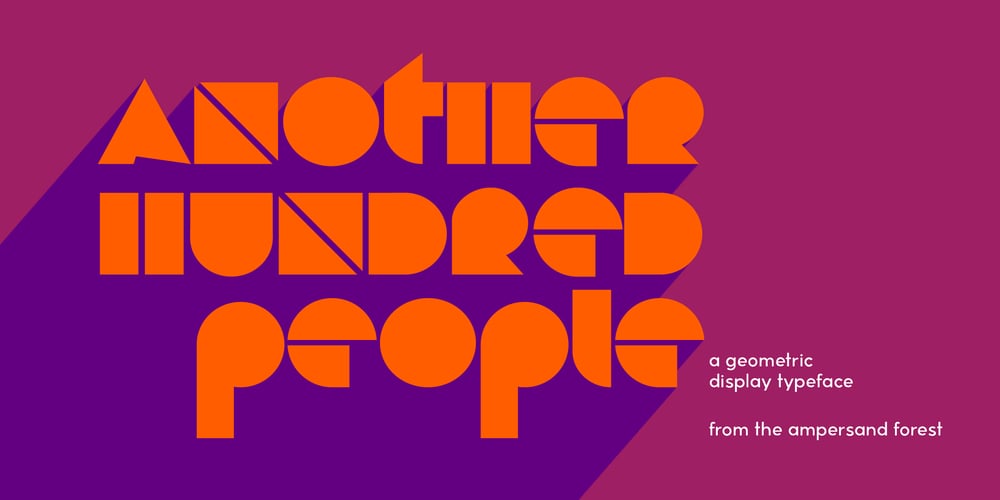
Another Hundred People Font Family was designed by DC Scarpelli and published by The Ampersand Forest. Another Hundred People contains 1 styles and family package options. Inspired by the iconic modernist letterforms in the poster for Stephen Sondheim’s 1972 musical Company, Another Hundred People is a gleeful set of solid geometric glyphs — as though a set of Colorforms decided to express itself in words.In addition to its lowercase and caps (which don’t share a baseline with the lowercase, but hang below it), Another Hundred People has solid alternates (for those who don’t like the divided letterforms) and overlapping ligatures!Part of the Ampersand Forest’s Sondheim Series.